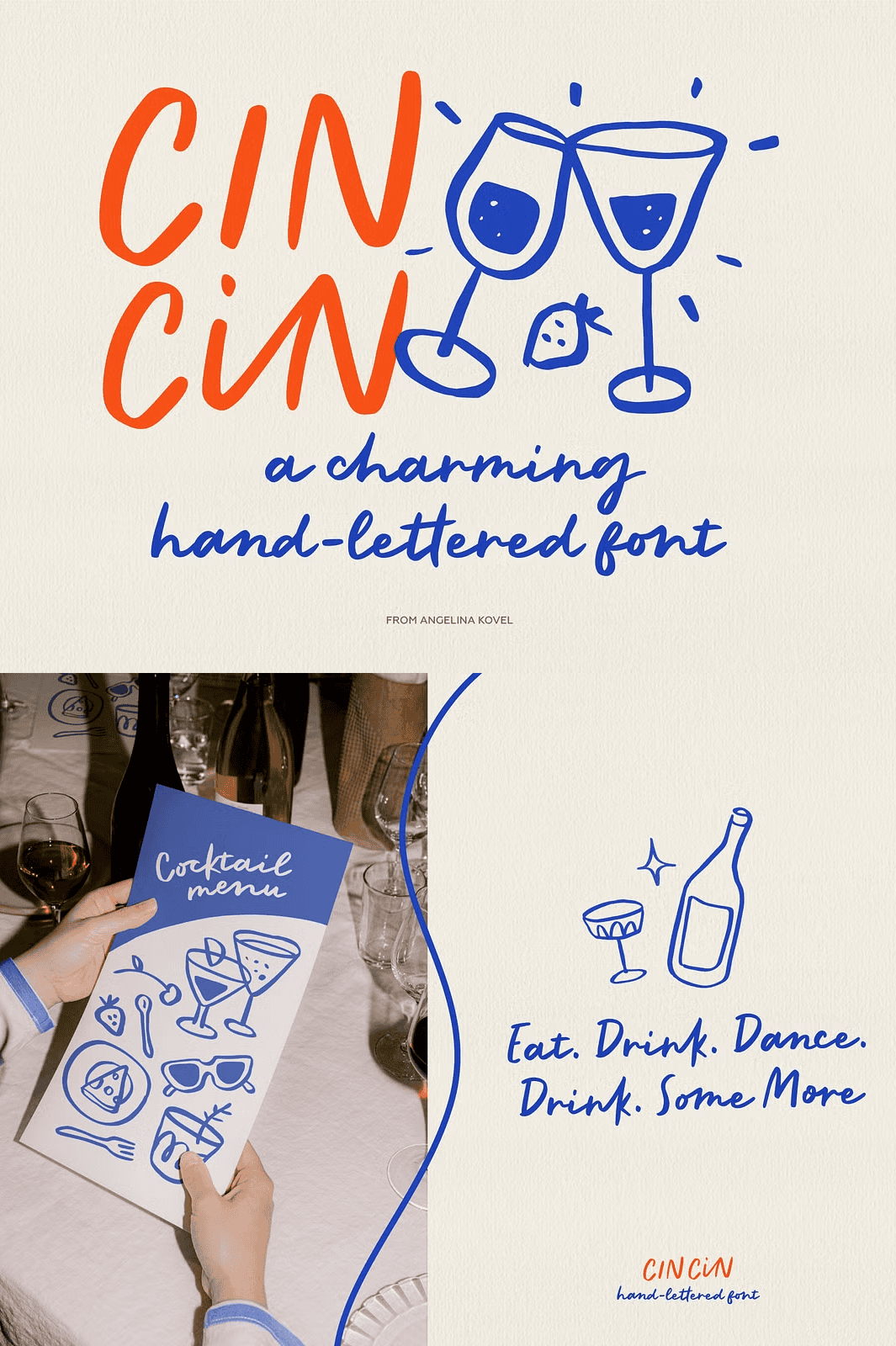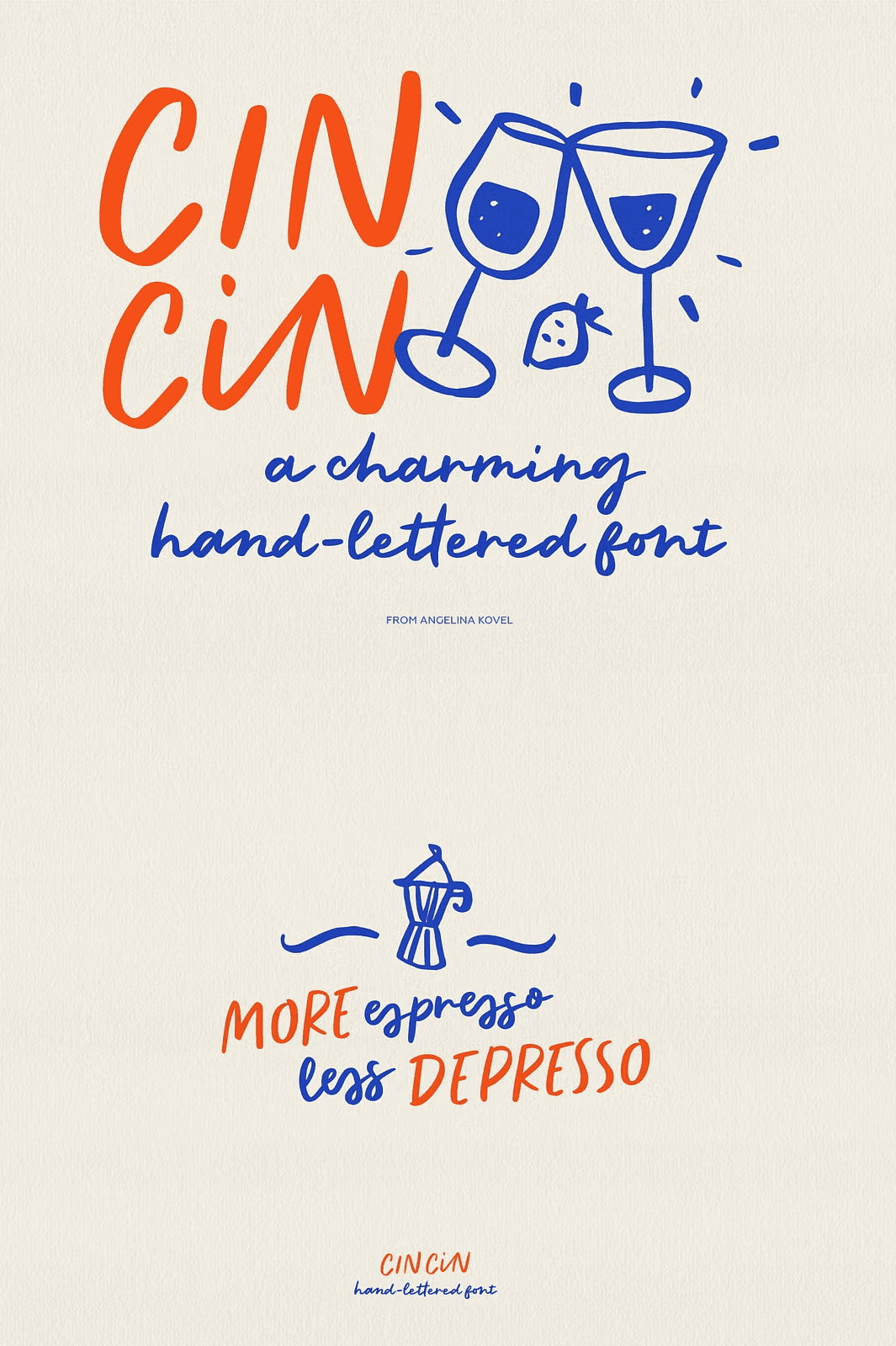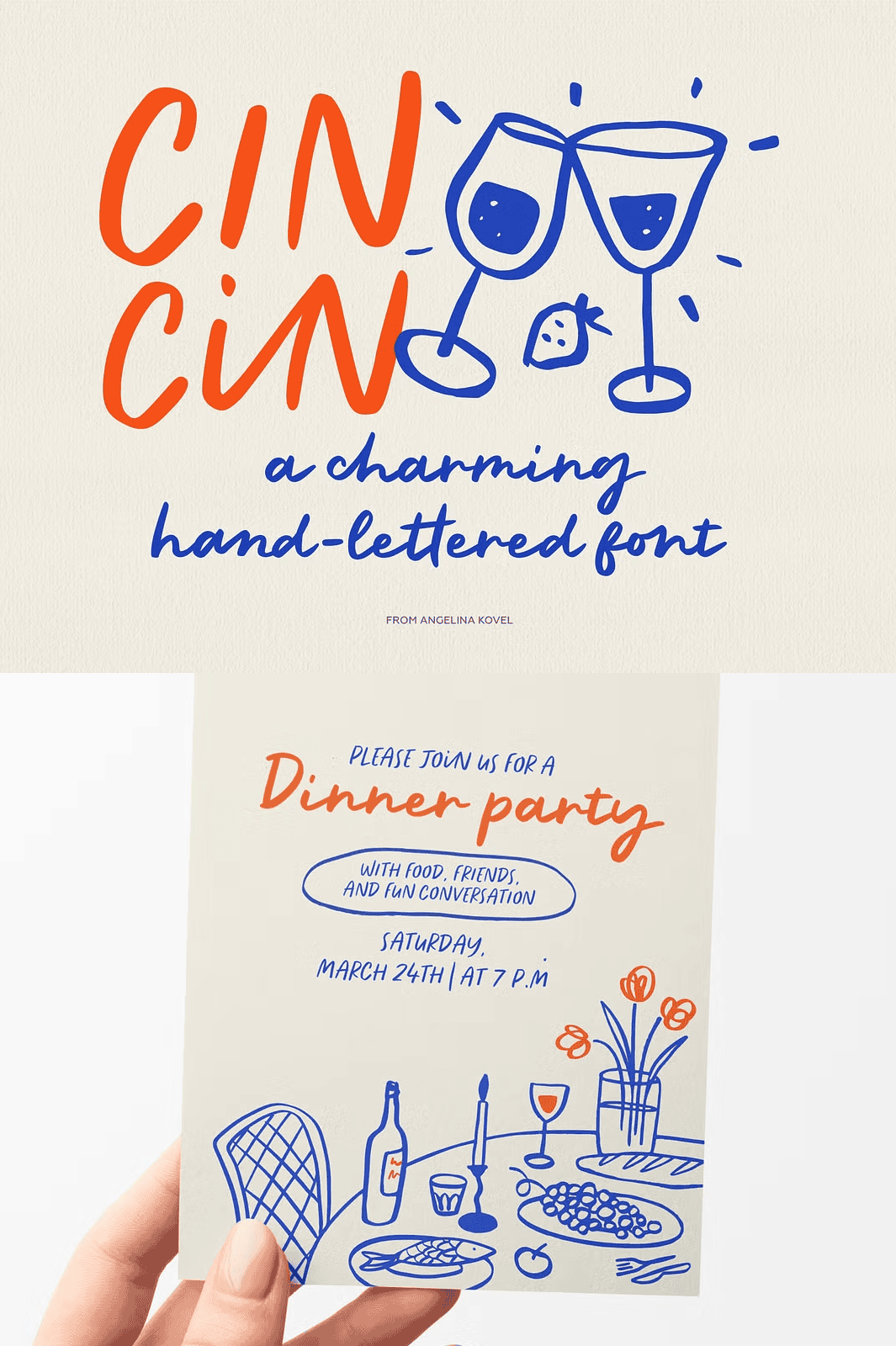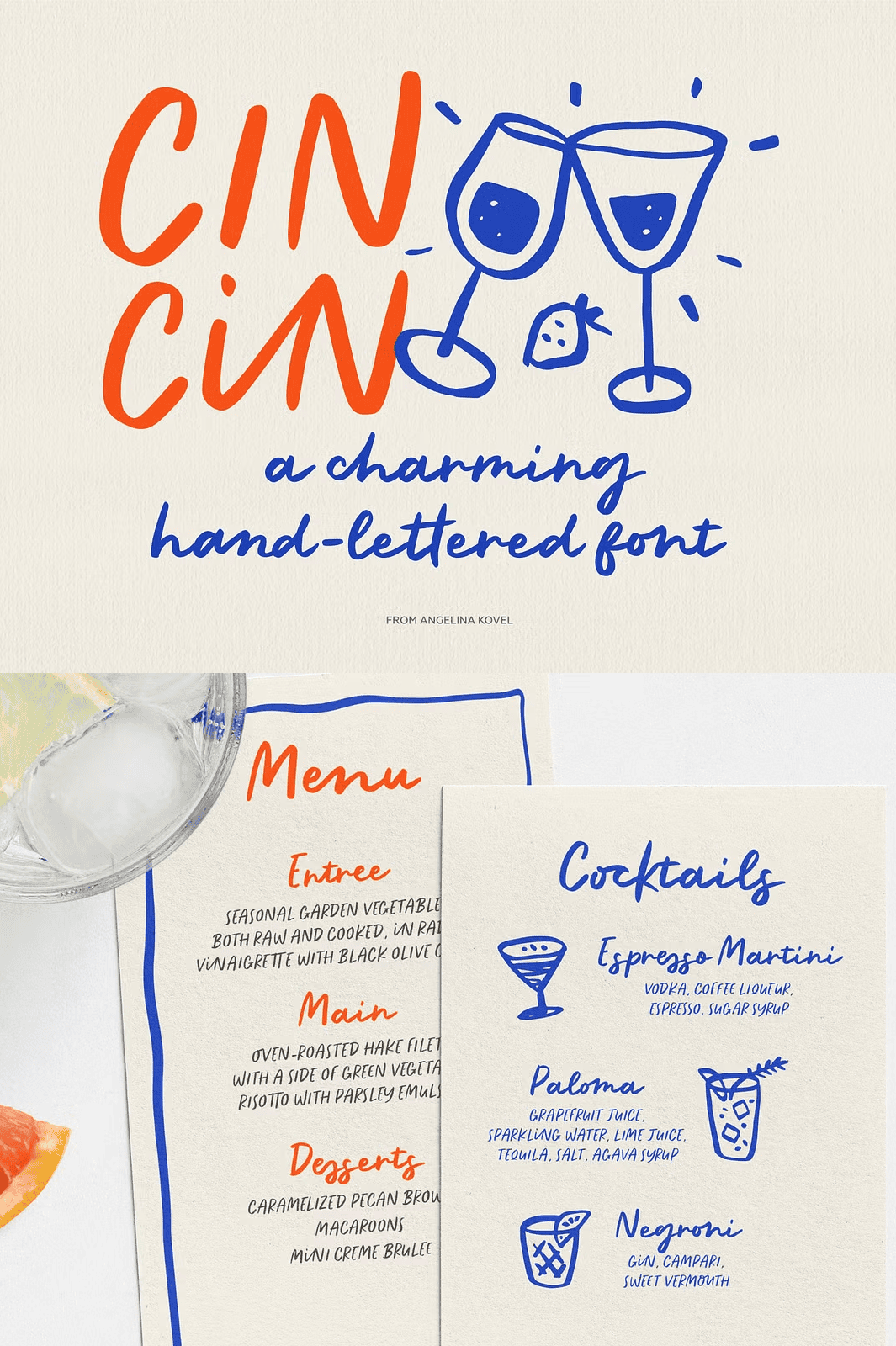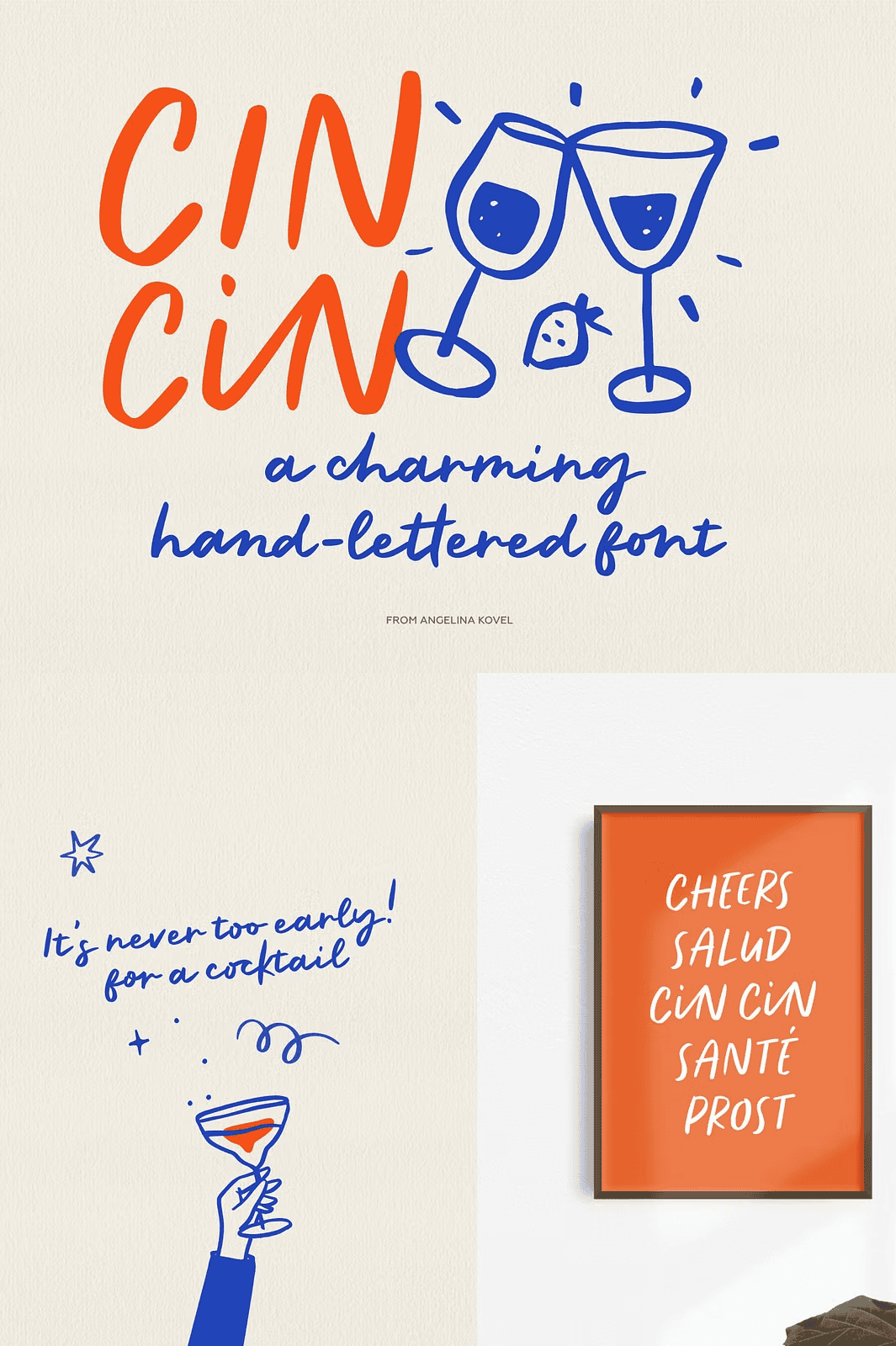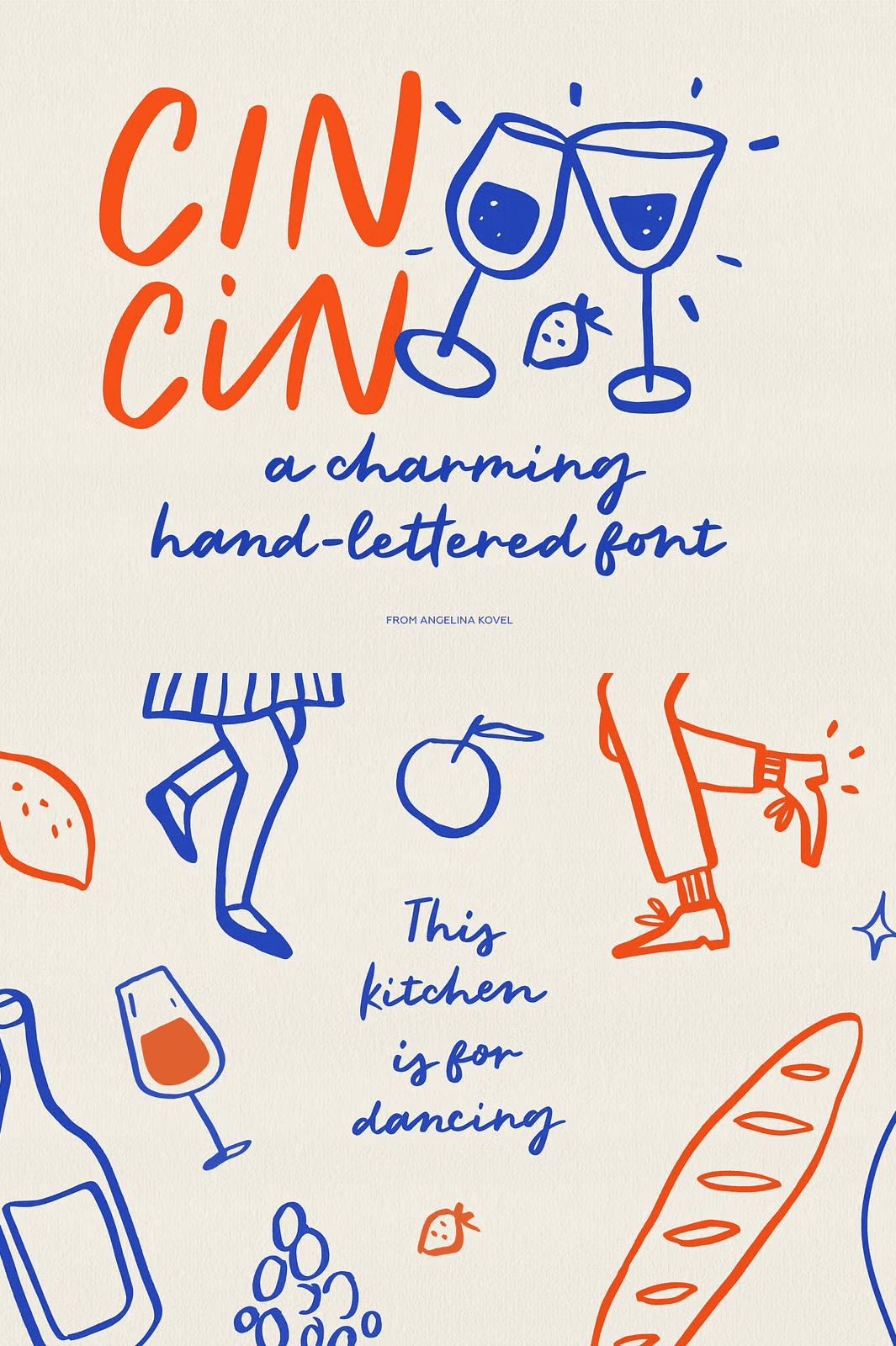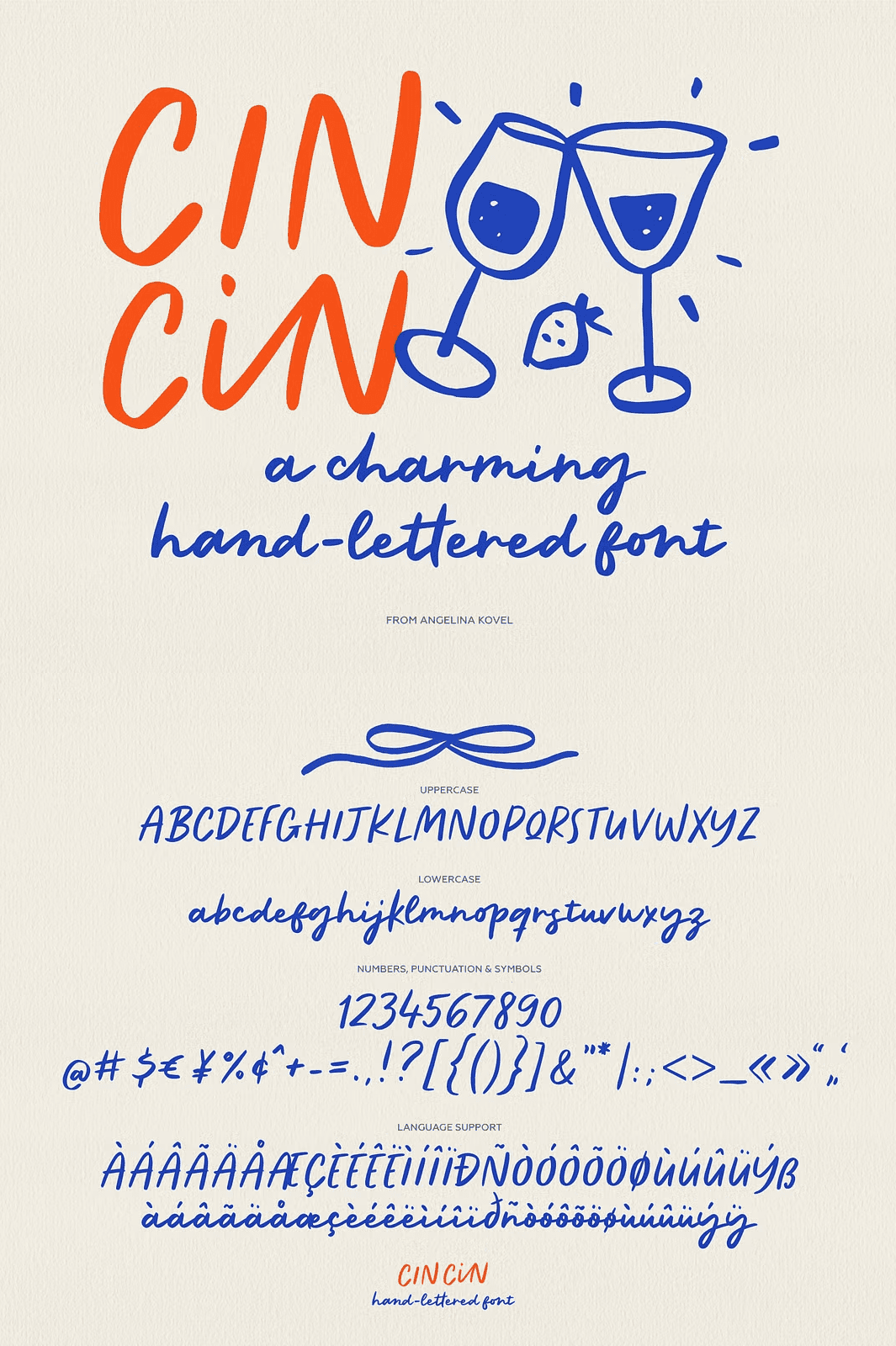
Unleash the Fun: Meet the CinCin Handwritten Font – Where Happiness Meets Design
Transform your creative journey with **CinCin**, a vibrant and expressive handwritten font that radiates joy, energy, and spontaneous happiness. Every stroke is designed to spark delight, making it the ideal choice for projects that demand a lighthearted, personal touch. Whether you’re designing greeting cards, crafting branding for a boutique shop, illustrating children’s books, or creating dynamic posters, CinCin brings a fresh, playful soul to every letter.
This is not just a font — it’s a creative mood booster. Its fluid, slightly uneven script captures the essence of handwritten spontaneity, giving your work an authentic, handcrafted feel that machine-generated fonts simply can’t replicate.
With these assets, you’re not just typing text — you’re building visual stories full of emotion and character.
Perfect for Projects That Demand Personality and Fun
CinCin isn’t built for the generic. It thrives in environments where personality matters:
– Design **greeting cards** that feel hand-written and full of heart
– Craft **brand logos** for cafes, boutiques, and lifestyle brands that want to stand out with charm
– Illustrate **children’s books, storybooks, or school materials** with playful, expressive lettering
– Create **dynamic posters, banners, and event flyers** that grab attention with joy
– Enhance **social media graphics, Instagram templates, and quote posts** with an authentic, friendly vibe
– Build **wedding invitations, baby shower cards, or party announcements** that reflect the celebration’s happy spirit
When you use CinCin, your design doesn’t just communicate — it connects.
Start Creating with CinCin — Where Every Letter Feels Like a Smile
Let CinCin be the brush that adds happiness to your designs. Whether you’re a freelance designer, small business owner, or creative hobbyist, this font empowers you to express yourself with confidence, flair, and pure fun. The moment you use it, you’ll feel the difference — because joy doesn’t just come from the image, it comes from the lettering itself.